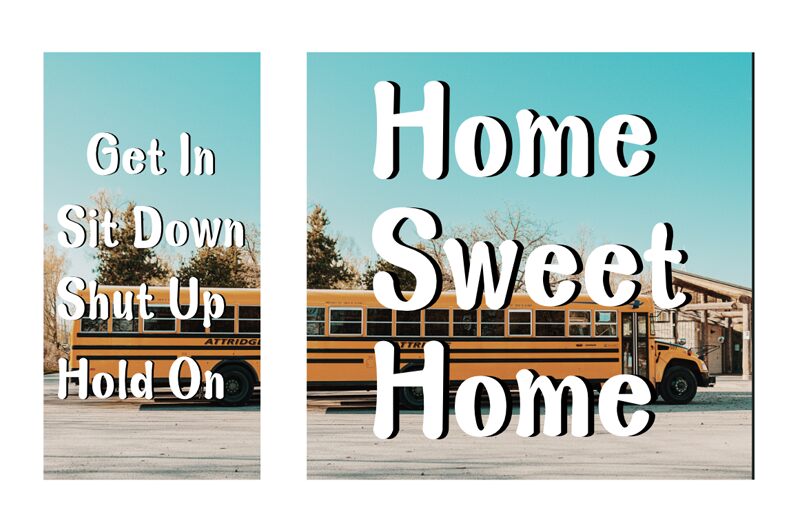
Joel, an exquisite creation by epiclinez, exudes elegance and sophistication. This captivating display font with its semi-bold weight is perfect for branding projects that require a touch of modernity and boldness. Whether it's designing logos for high-end fashion labels or crafting eye-catching headlines for luxury magazines, Joel effortlessly captures attention and leaves a lasting impression. Its clean lines and distinct letterforms make it ideal for creating impactful posters, stylish invitations, or even innovative website headings. With Joel in your design arsenal, let your creativity soar and elevate your projects to new heights.